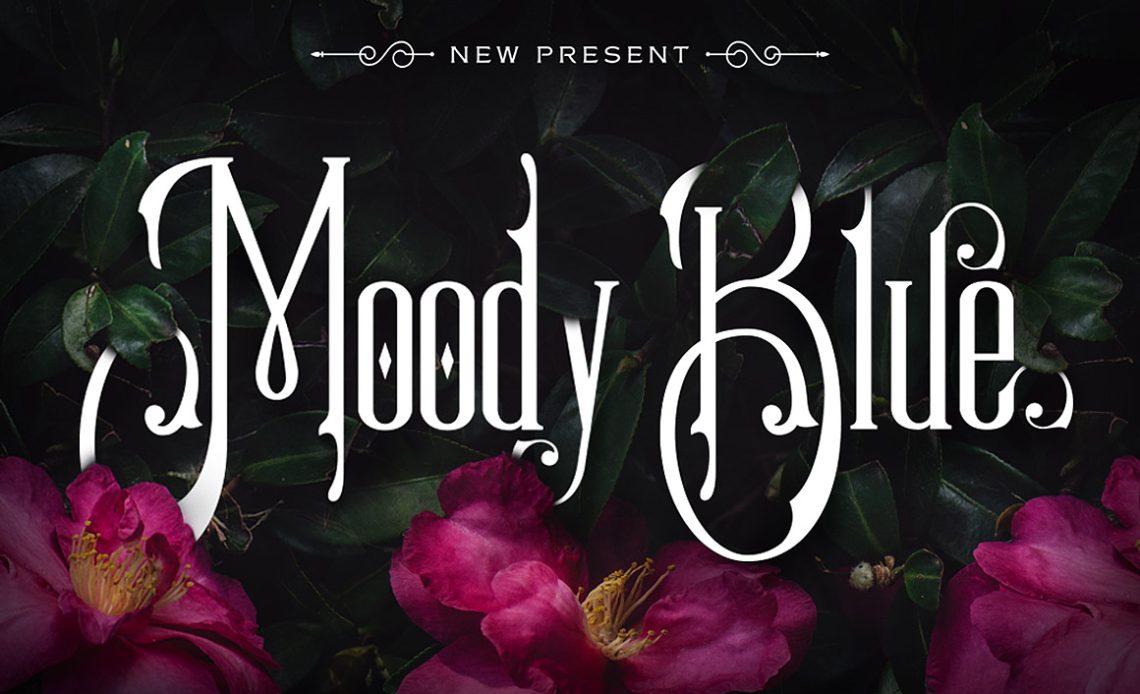
Are you tired of using the same old fonts that everyone else is using? Look no further than Moody Blue Font! This decorative font family created by storictype is the perfect addition to any designer's toolkit.
Inspired by classic typographic design, vintage art, and book covers, the Moody Blue typeface is a stunning display font that is sure to make your designs stand out. Its beautifully crafted letters are both elegant and whimsical, making it a versatile choice for a variety of design projects.
Whether you're creating a wedding invitation, a book cover, or a logo, Moody Blue is the perfect font to elevate your design. Its unique style is sure to capture the attention of your audience and leave a lasting impression.